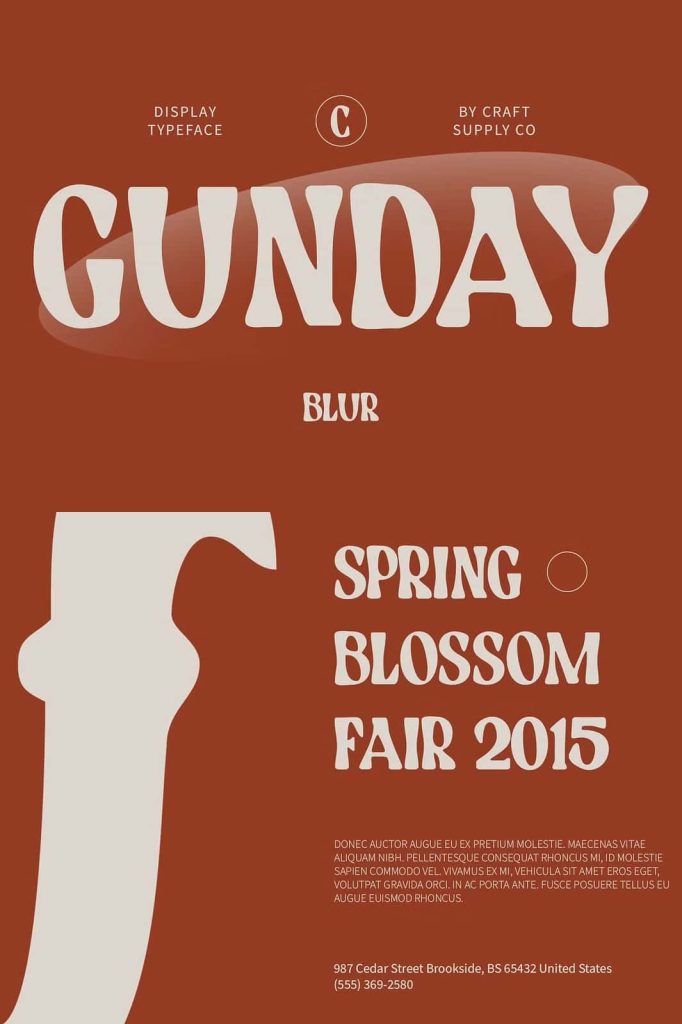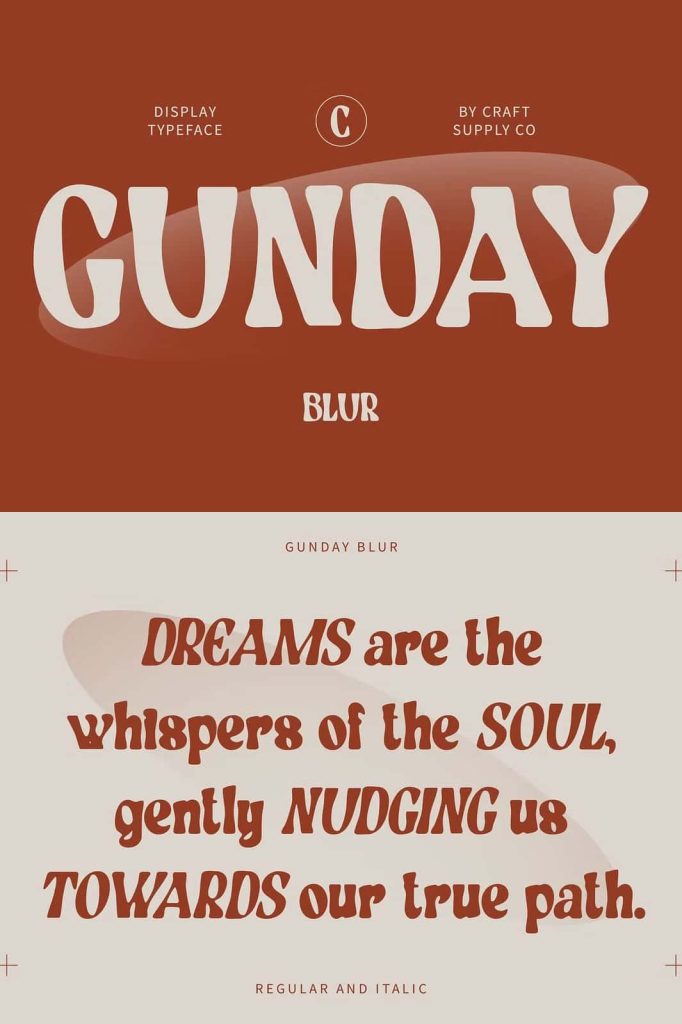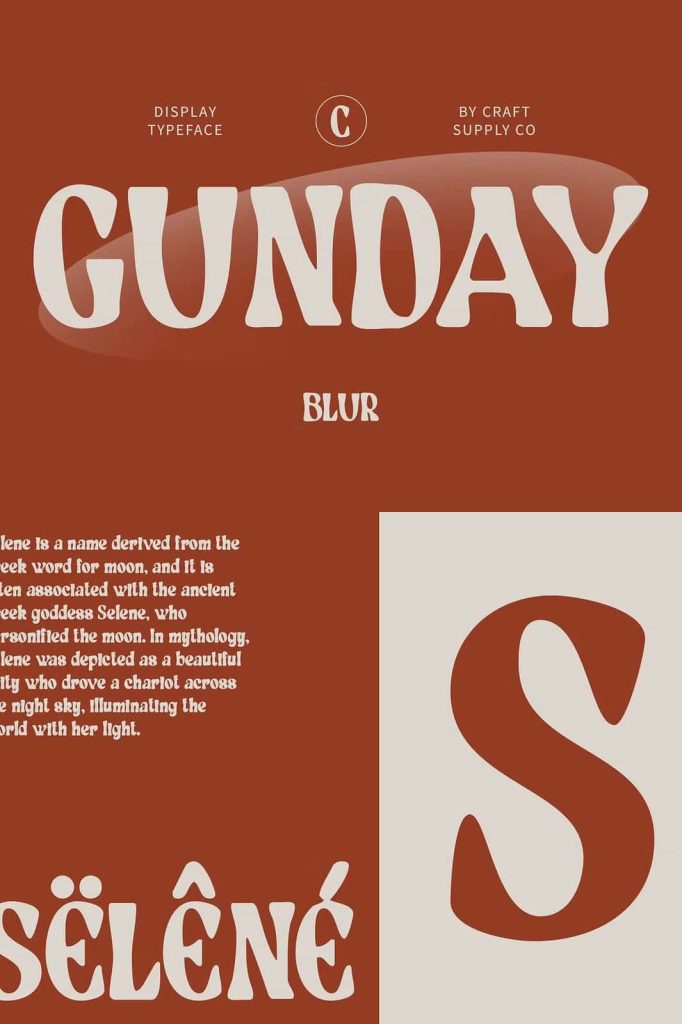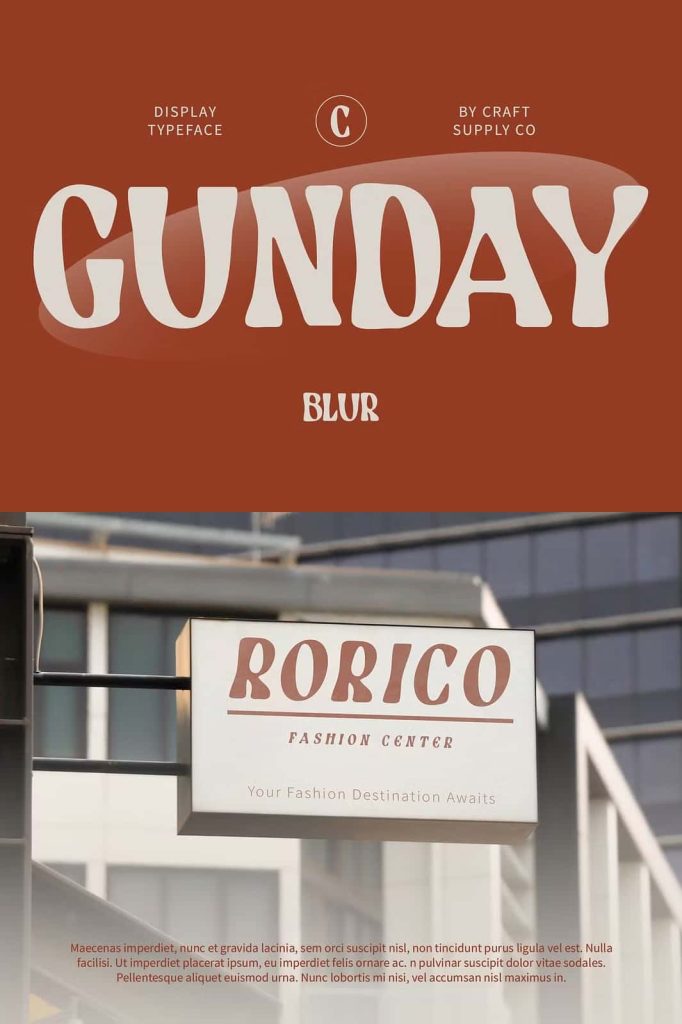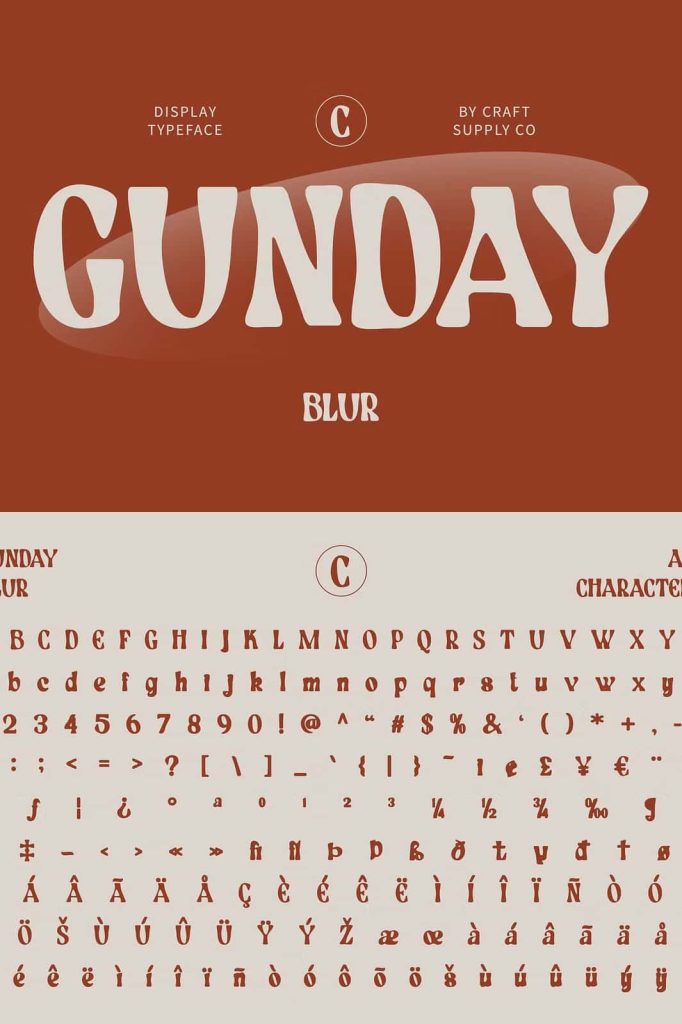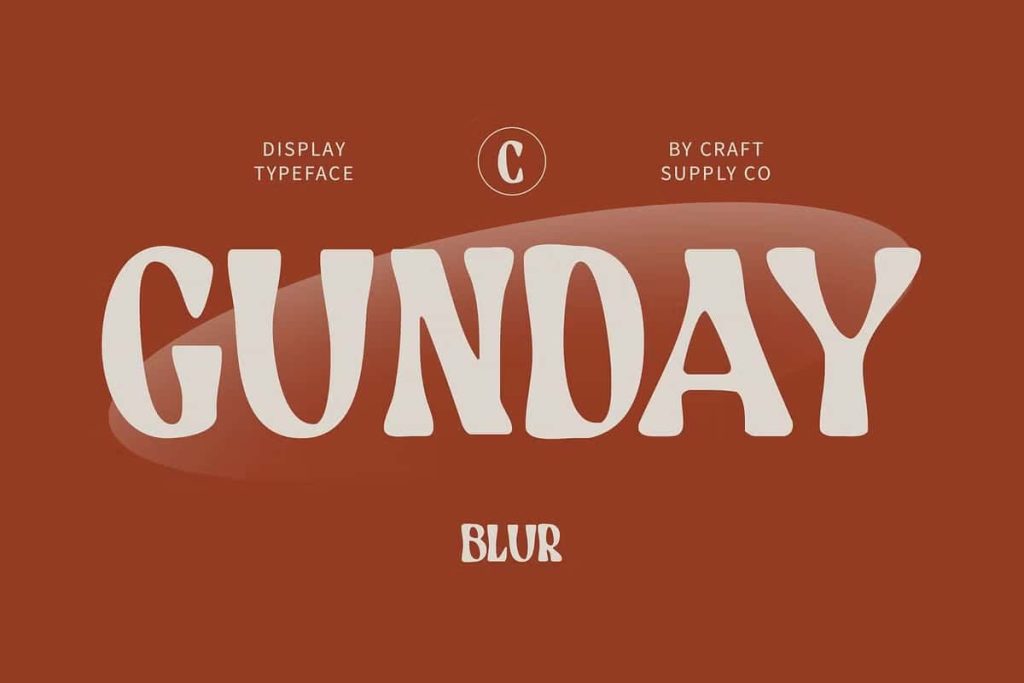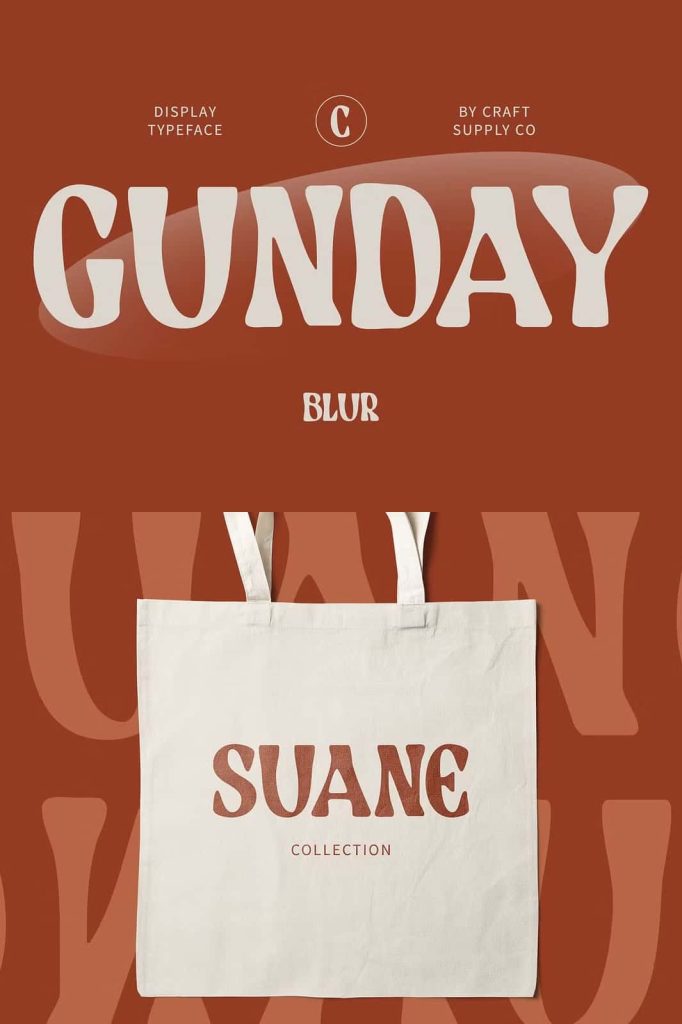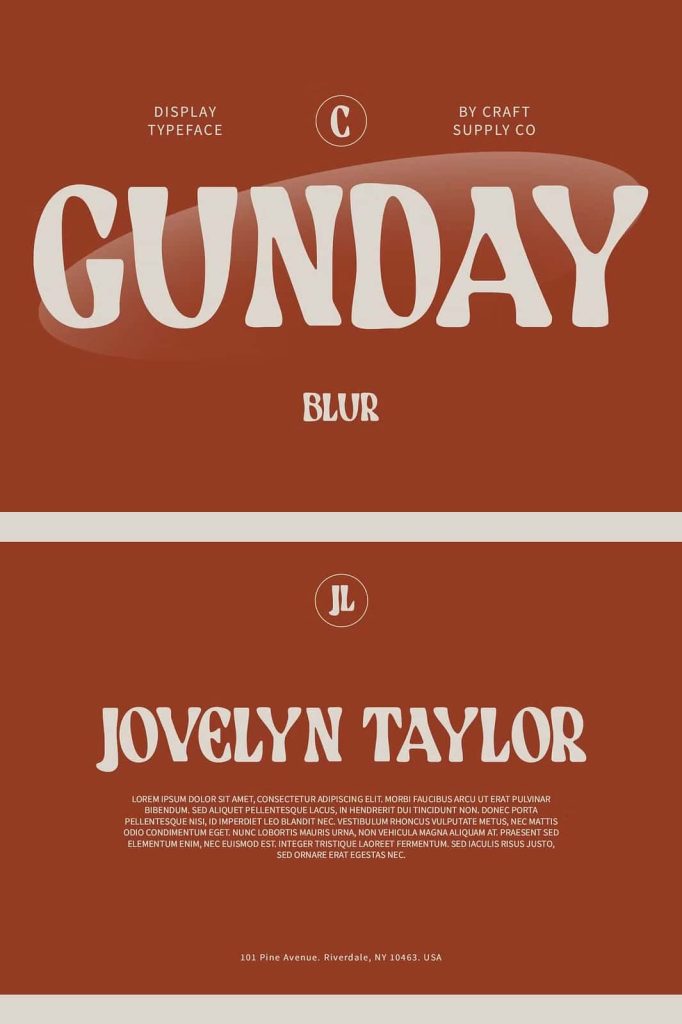
Gunday Blur – Retro-Classic Serif Font
Vintage Elegance Meets Modern Sophistication Gunday Blur is a bold serif font that combines the timeless charm of vintage design with a contemporary blur effect. Featuring robust lines and distinctive serifs, this font emphasizes classic elegance and a nostalgic aura.